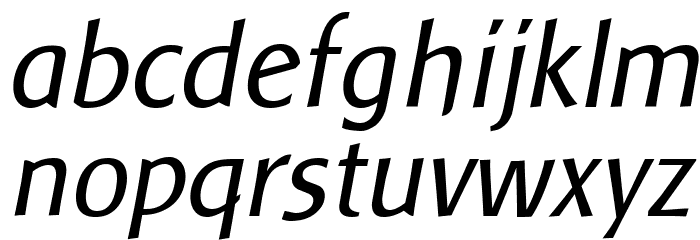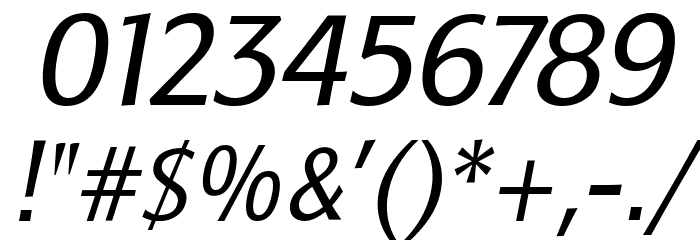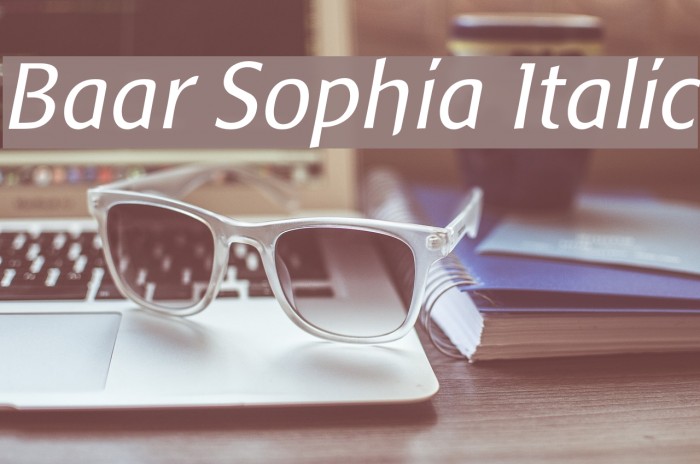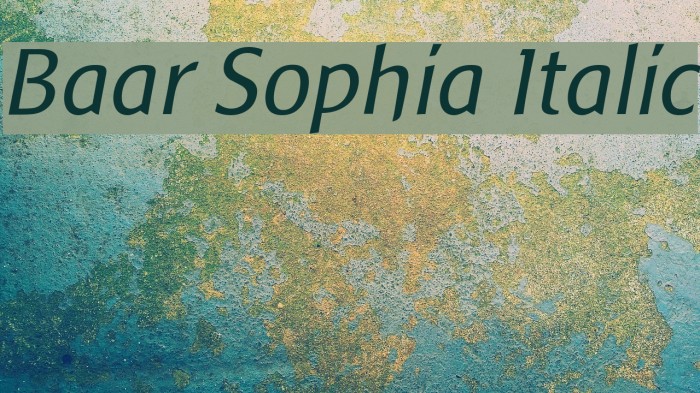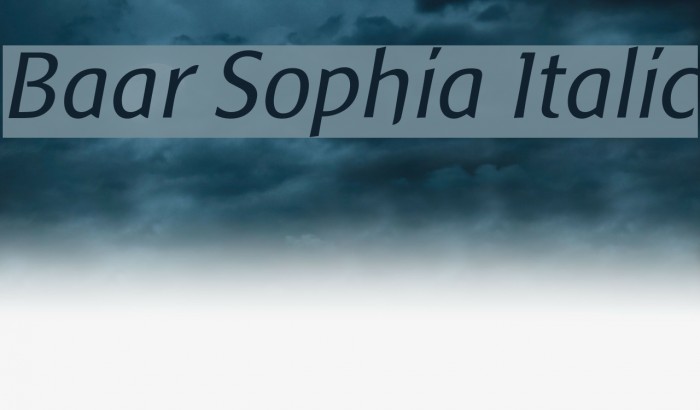
Baar Sophia Italic Font
This font features a sleek and modern italic style, characterized by its clean lines and subtle curves. The letters are slightly slanted, giving a sense of motion and elegance. The uppercase letters are bold and assertive, while the lowercase letters maintain a smooth and consistent flow. The numerals are clear and easy to read, making them suitable for various applications. Special characters are well-defined, adding versatility to the font's usage. Overall, the font exudes a professional and contemporary feel, ideal for projects that require a touch of sophistication.
A modern italic font with clean lines and elegant curves.
- Proposed Projects: Ideal for branding, editorial design, advertising, and digital media projects.